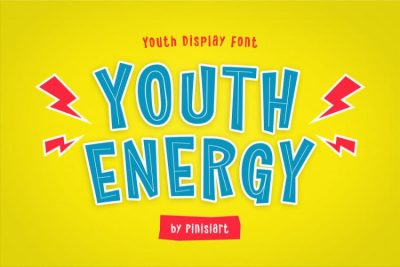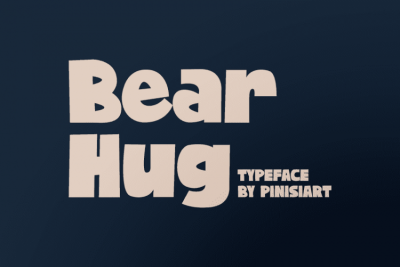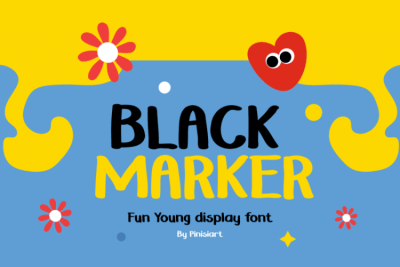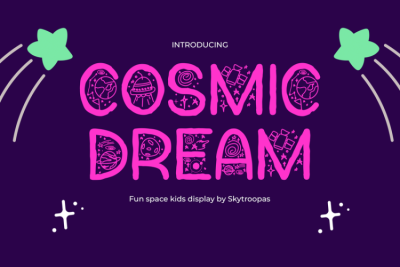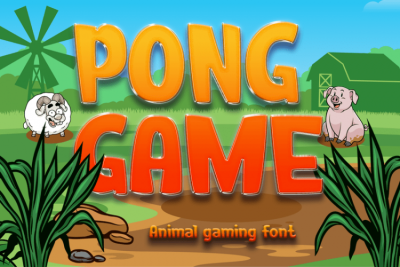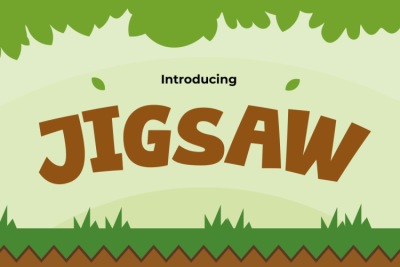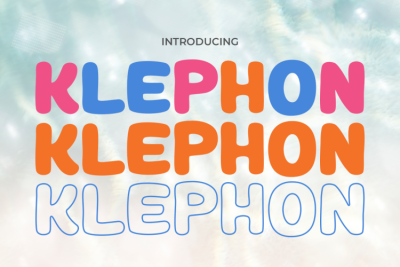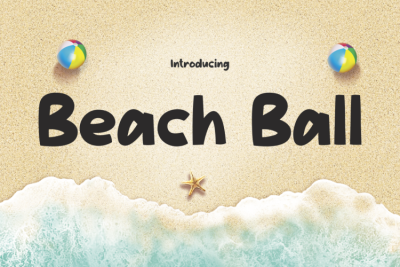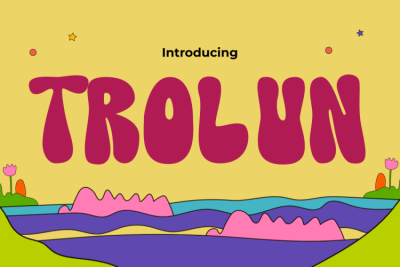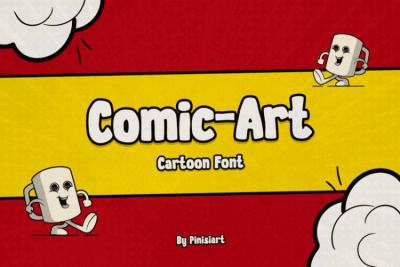
humorous typeface collection
Makeba
Klephon
Ahoy
Beachwave
Trolun
Jigsaw
Beach Party
Beach Ball
Udon Star
Cosmic Dream
Black Marker
Ginuks
Comic Art
Happy Days
Ompalumpa
Youth Energy
Bear Hug
Pong Game
Hawainas
Mammothy
Do you want to make your designs bold, quirky, and full of personality? If so, the Humorous Typeface CollectionΒ is exactly what you need! This collection includes 20 premium funny-style fonts, carefully designed to bring energy and humor to any project. Whether you’re working on branding, social media, or merchandise, these fonts will instantly make your designs stand out.
✨ What’s Inside?
This bundle offers 20 unique funny fonts, each packed with wacky, bold, and exaggerated styles. Not only do they add a playful touch to your designs, but they’re also super easy to use. Plus, they work well for various projects, whether you need something goofy for headlines, fun for branding, or eye-catching for merchandise.
Why You’ll Love This Bundle
βœ” 20 Unique Funny Fonts – A mix of goofy, exaggerated, and playful styles that bring joy to any design.
βœ” Versatile & Fun – Whether you’re designing for branding, social media, or party materials, these fonts add a unique twist.